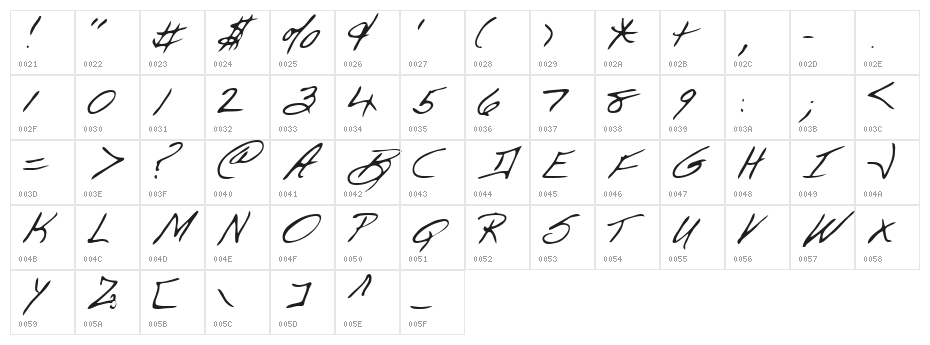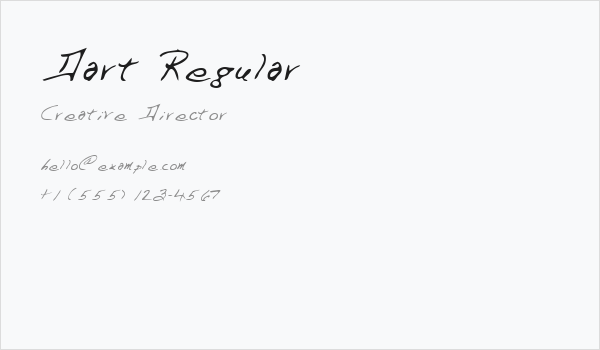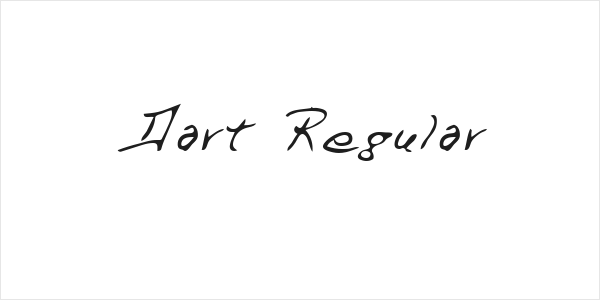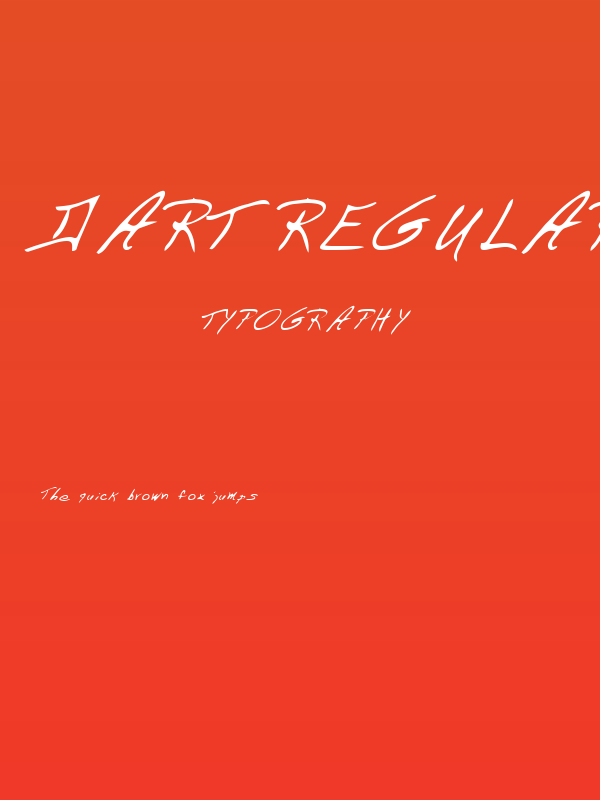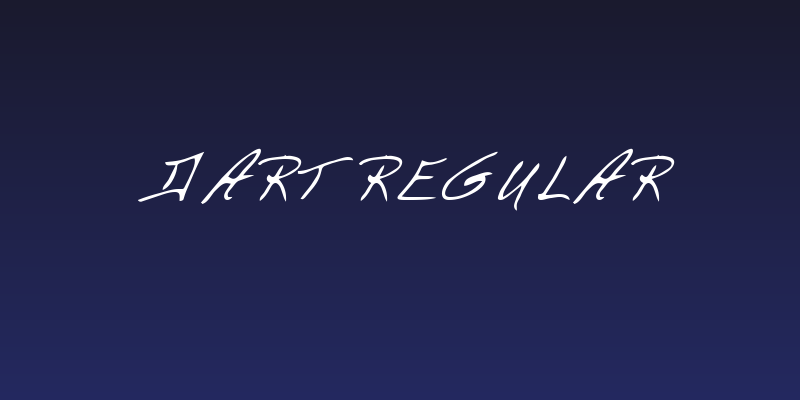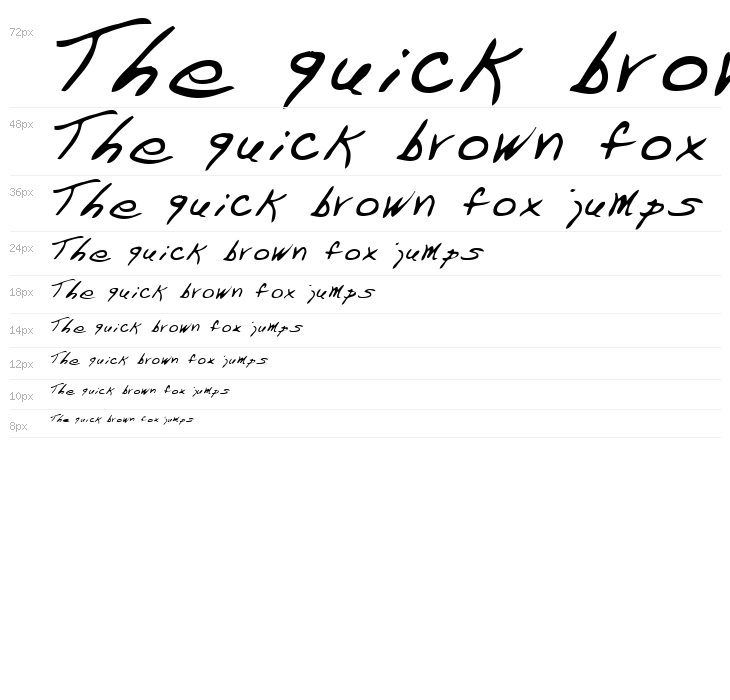
Dart Regular Font
Dart Regular Description
This font features a dynamic and fluid script style, characterized by its elegant and flowing letterforms. The strokes are smooth and connected, giving it a handwritten appearance. The uppercase letters are bold and expressive, while the lowercase letters maintain a consistent flow, enhancing readability. The numerals are distinct and maintain the same fluidity as the alphabet. Special characters are creatively integrated, adding to the font's overall artistic appeal. This font is ideal for projects that require a personal touch, such as invitations, greeting cards, or artistic branding.
| Proposed Projects | Ideal for invitations, greeting cards, artistic branding, and personal projects. |